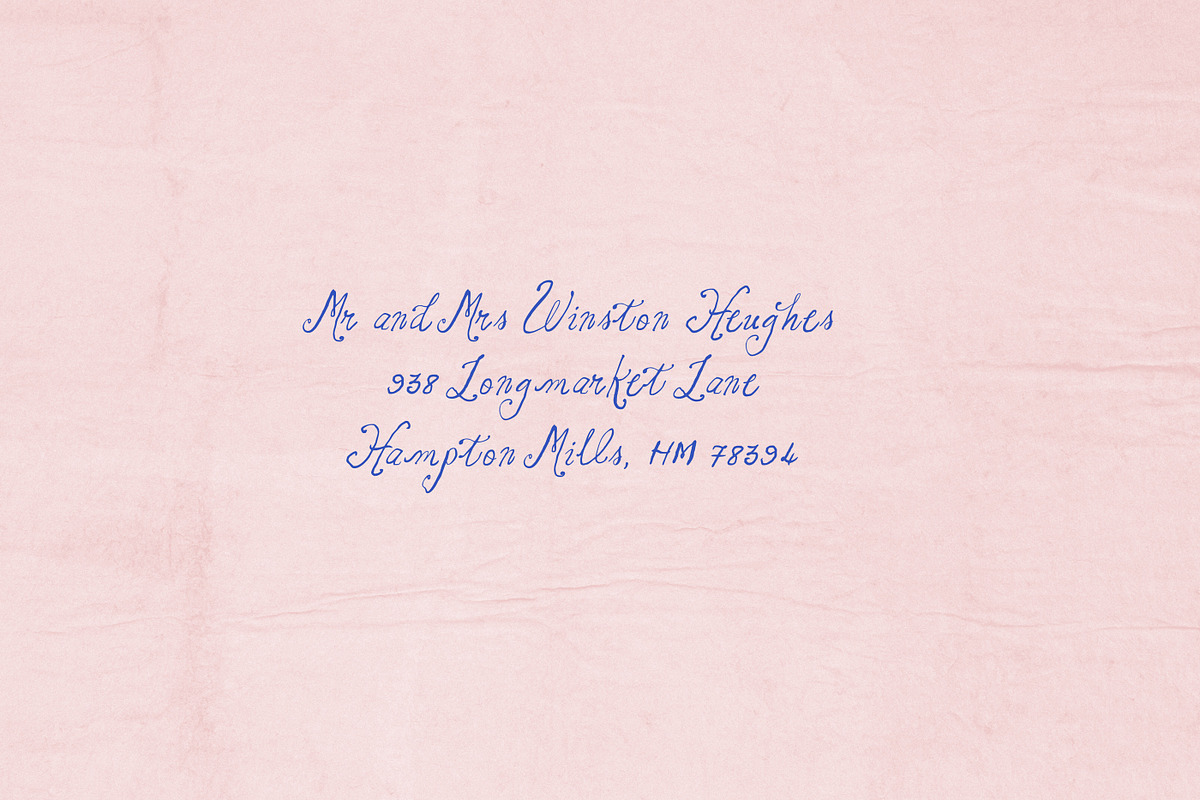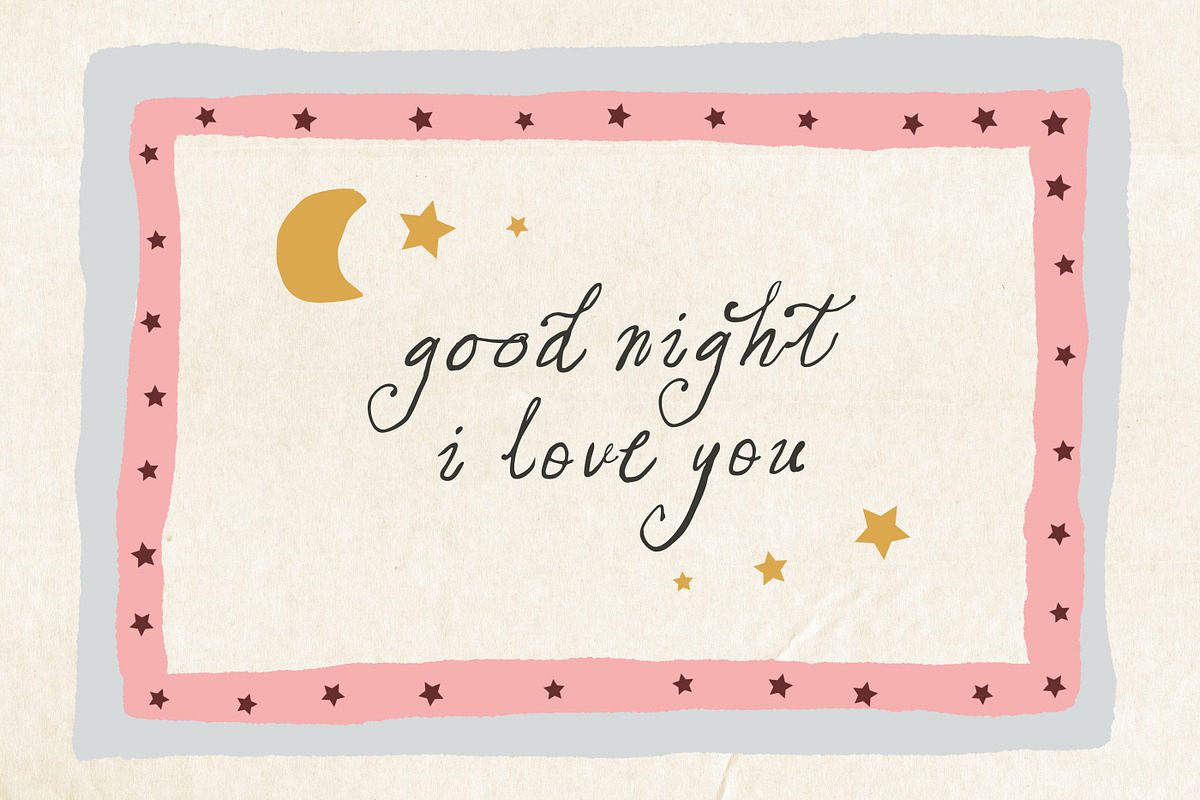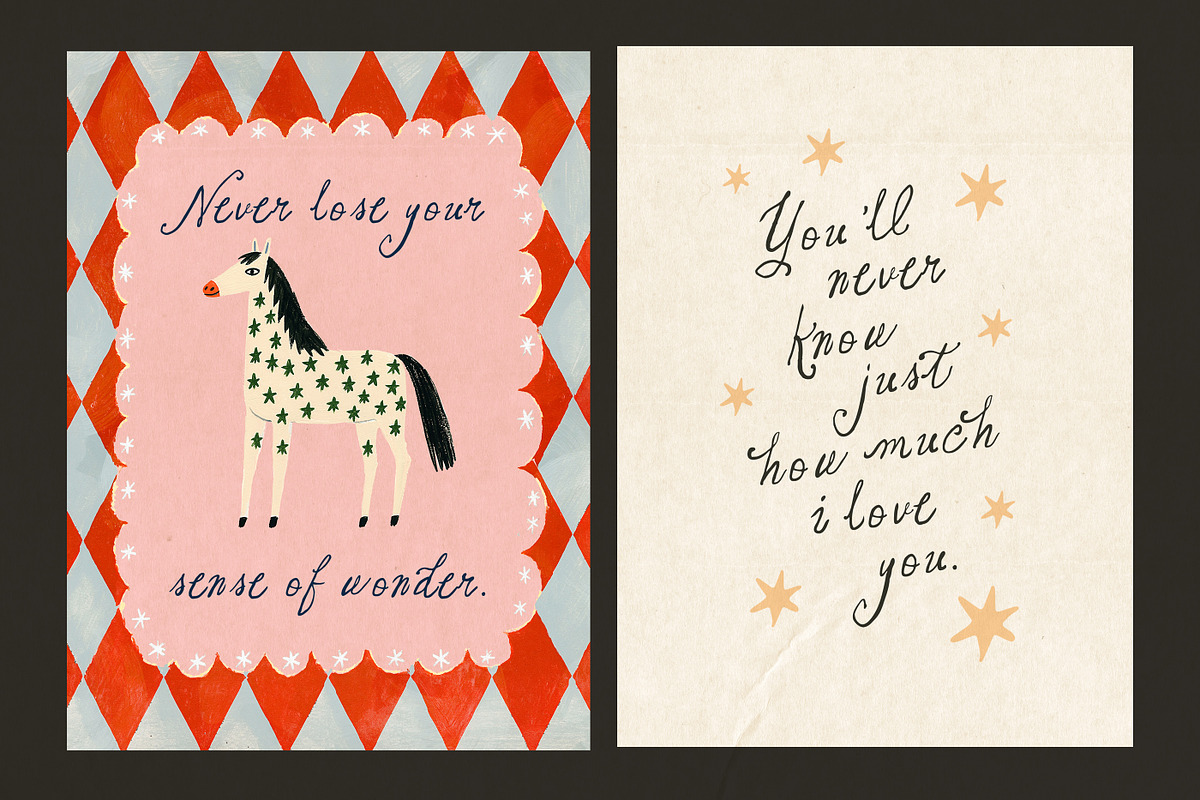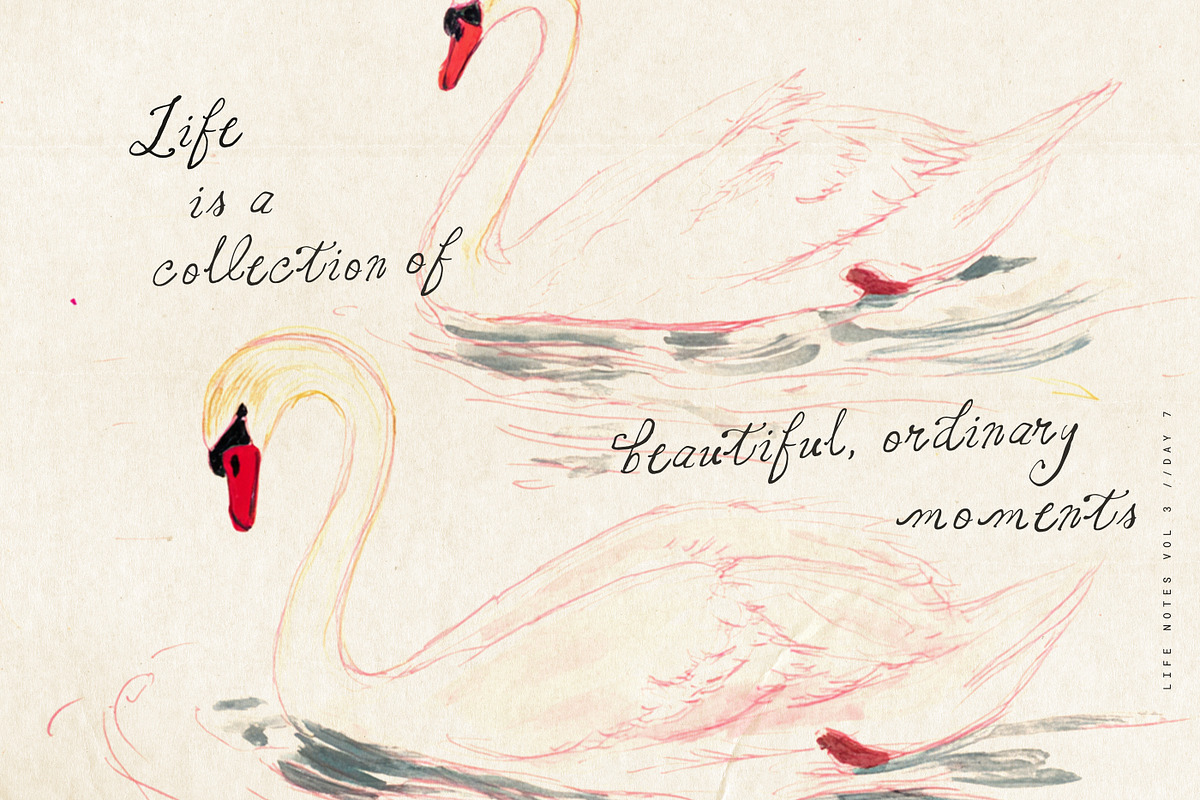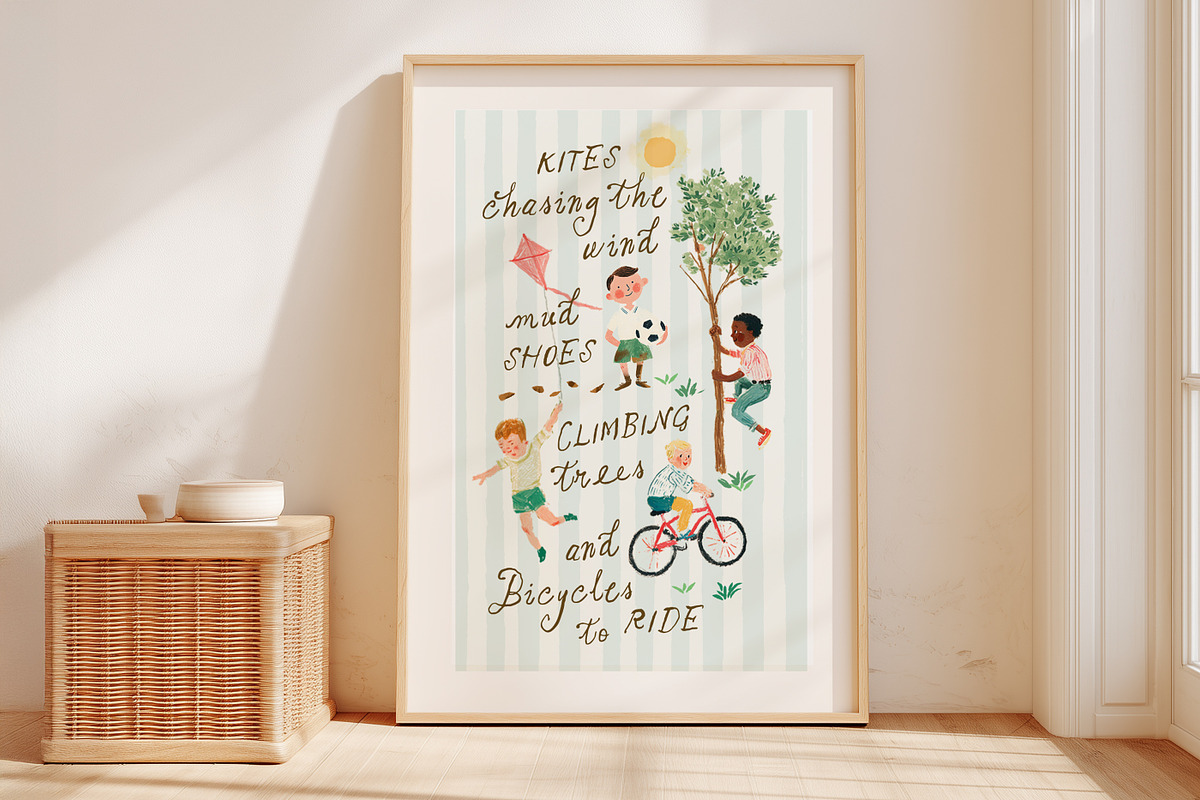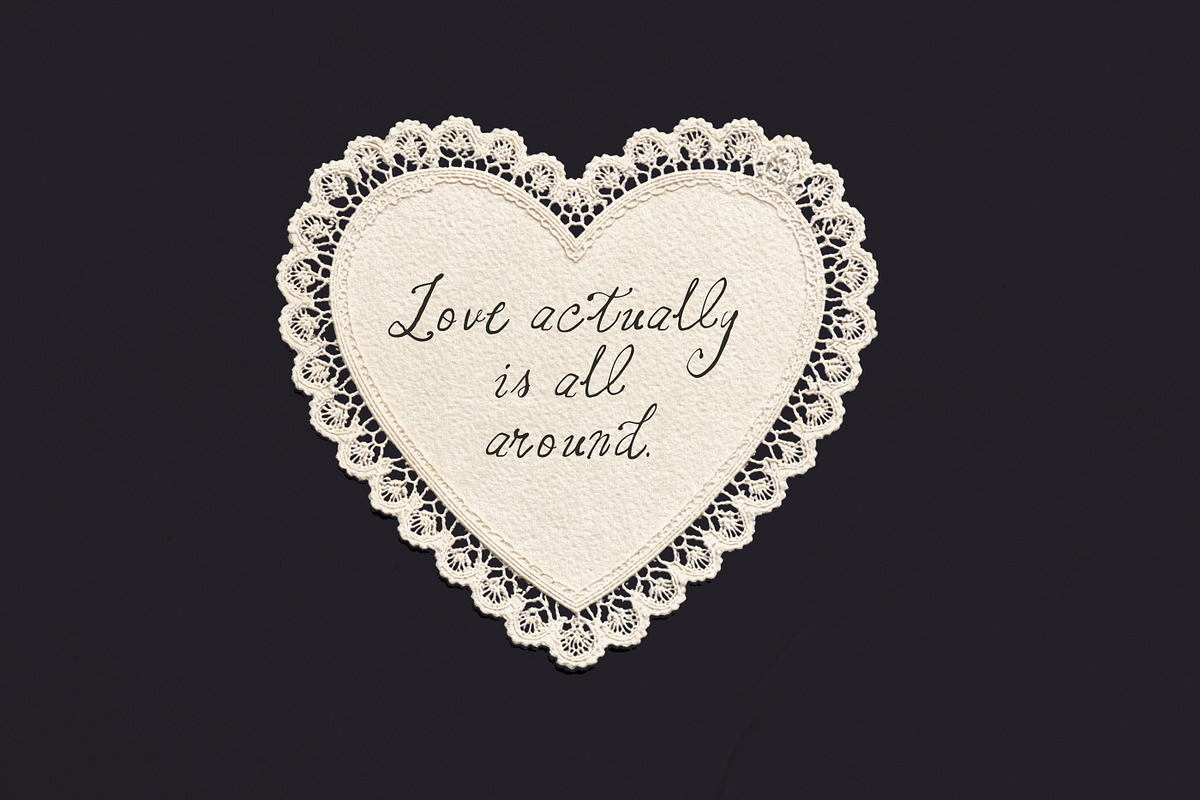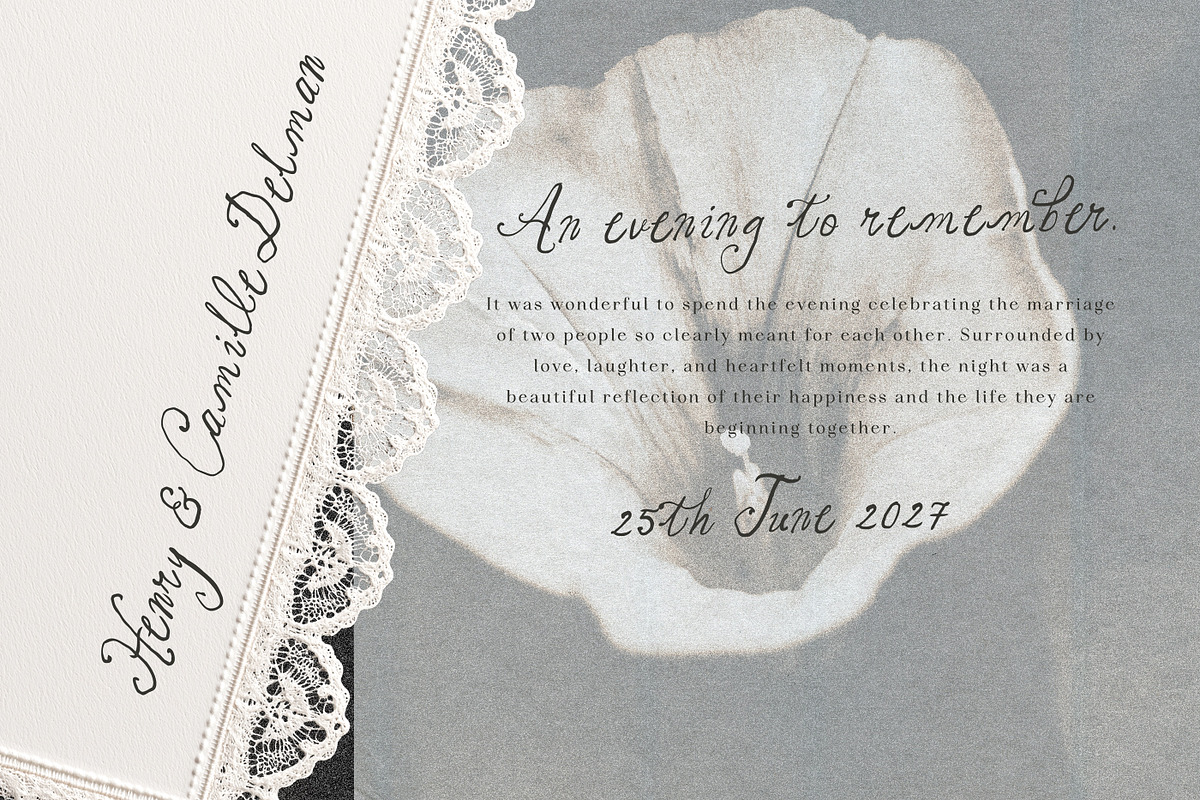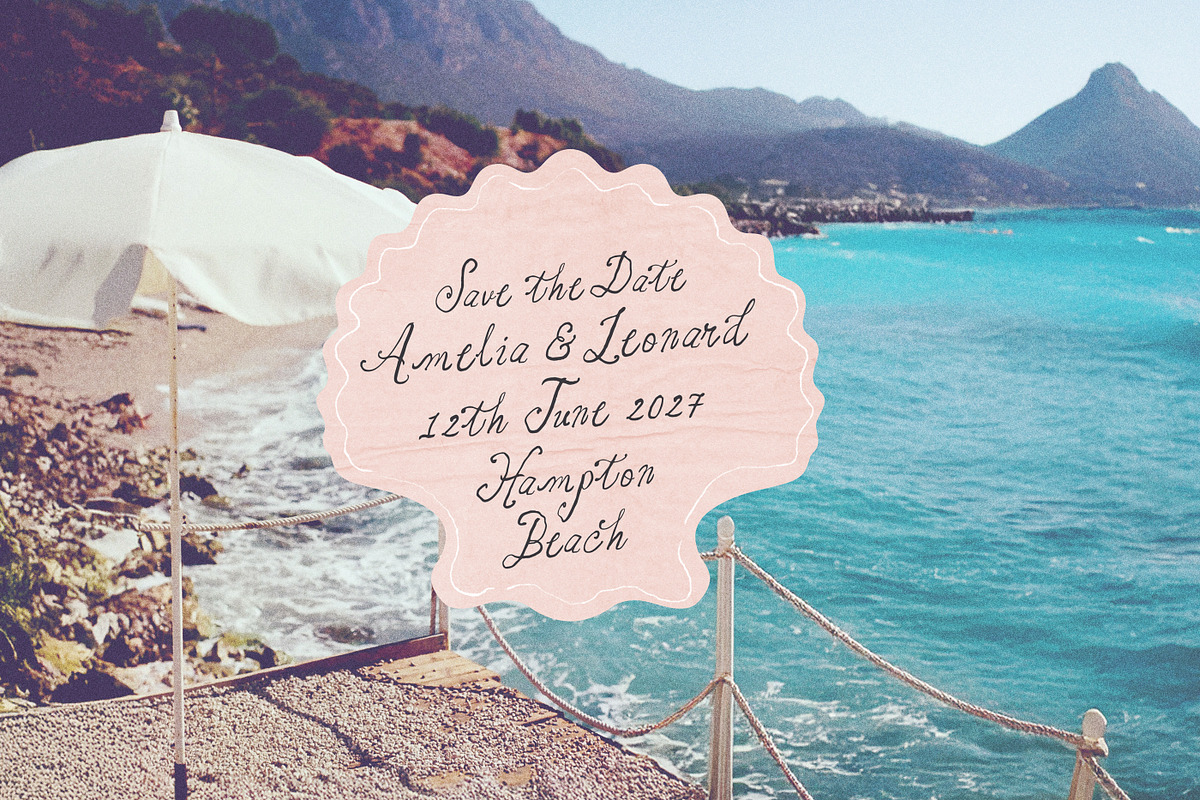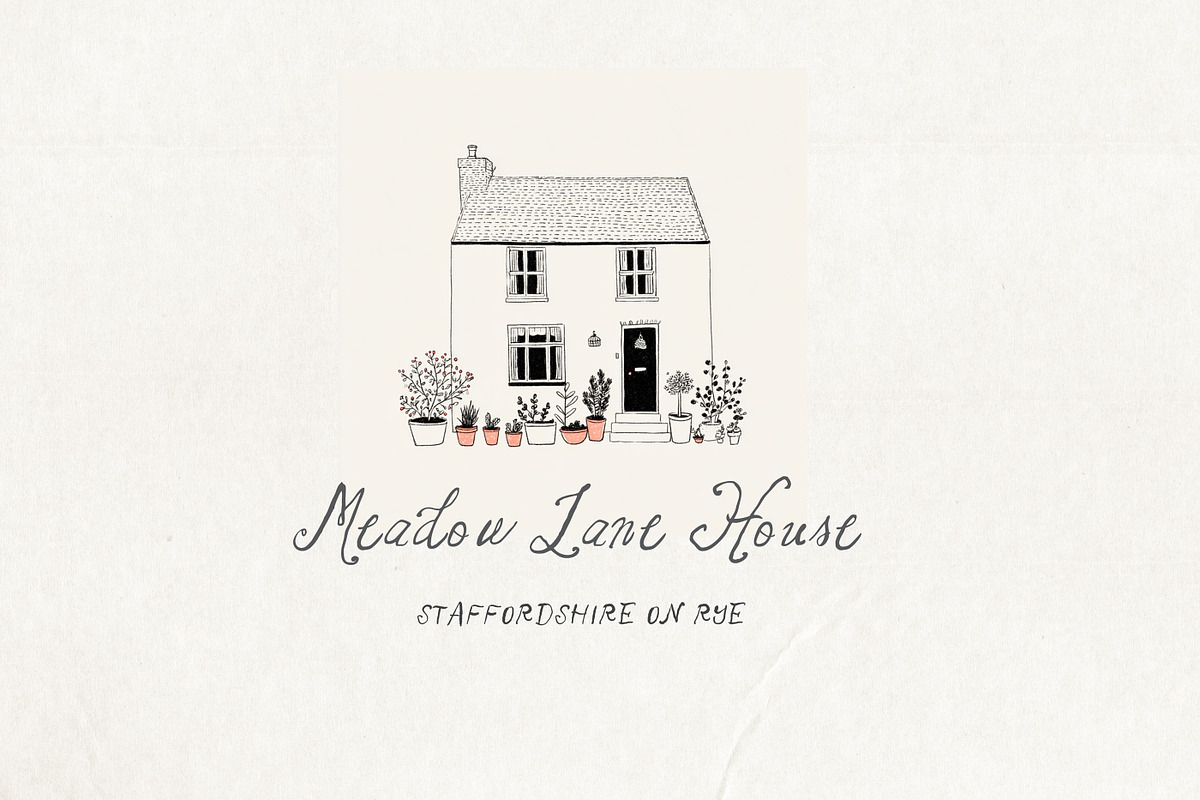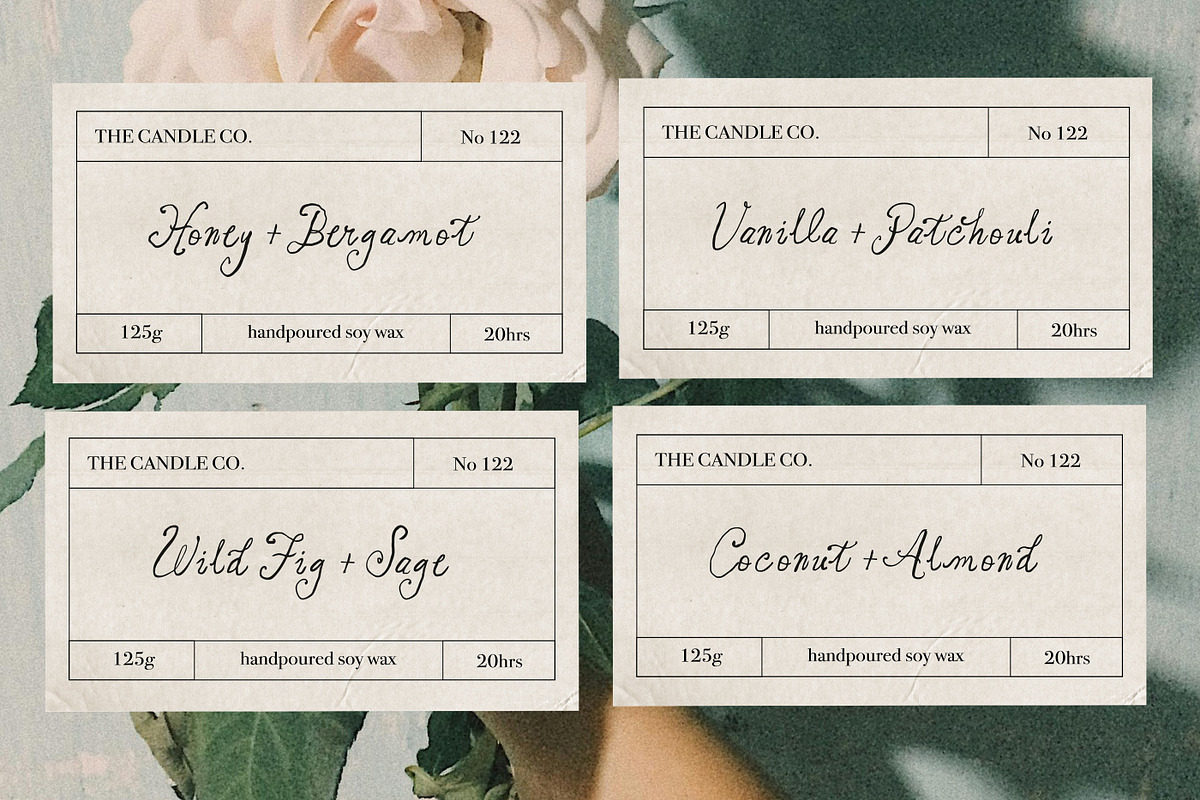
The Paper Cake Font Duo
Say hello to the ‘Paper Cake’ Font Duo!
A delicately handlettered, hand-quilled, font duo that captures the charm of an era where the time was taken to carefully write letters that sent a feeling, not just a message.
Warm and poetic, expressive and whimsical, a perfect duo for adding a personal touch of dainty elegance.
Paper cake consists of a sweet little imperfectly quilled script and a matching Inky All caps Sans.
Romantic and playful at the same time, they are perfect for greeting cards, poetic prints and posts , whimsical invites and menus, charming labels , inspiring typographic quotes, fairytale illustrations, delicate branding, and romantic yet whimsical weddings.
Slight variances in weight are included for you to find just the right look - as well as Oblique and Upright versions.
Turn on your Opentype Ligatures to type with the extra natural looking double letters included - to make your writing look more natural and less like a font :)